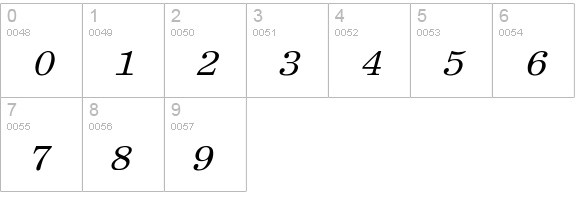
Asphalt Fixed Italic Font Details
Asphalt Fixed Italic is a distinctive, italic variant in the Asphalt typeface family \xE2\x80\x94 well suited to design and typography projects.
The Asphalt Fixed Italic font exudes a sense of sleek modernity and sophistication with its sharp, angular design. This unique typeface is perfect for adding a touch of edgy elegance to any project, whether it be for digital or print use. The bold, italicized characters of Asphalt Fixed Italic make a strong statement, commanding attention and conveying a sense of boldness and confidence. What's even better is that you can freely download the Asphalt Fixed Italic font at FontsMarket.com. This means you can easily access this stylish font for all your design needs without any cost. Don't miss out on the opportunity to enhance your creative projects with the striking Asphalt Fixed Italic font - download it for free today at FontsMarket.com!